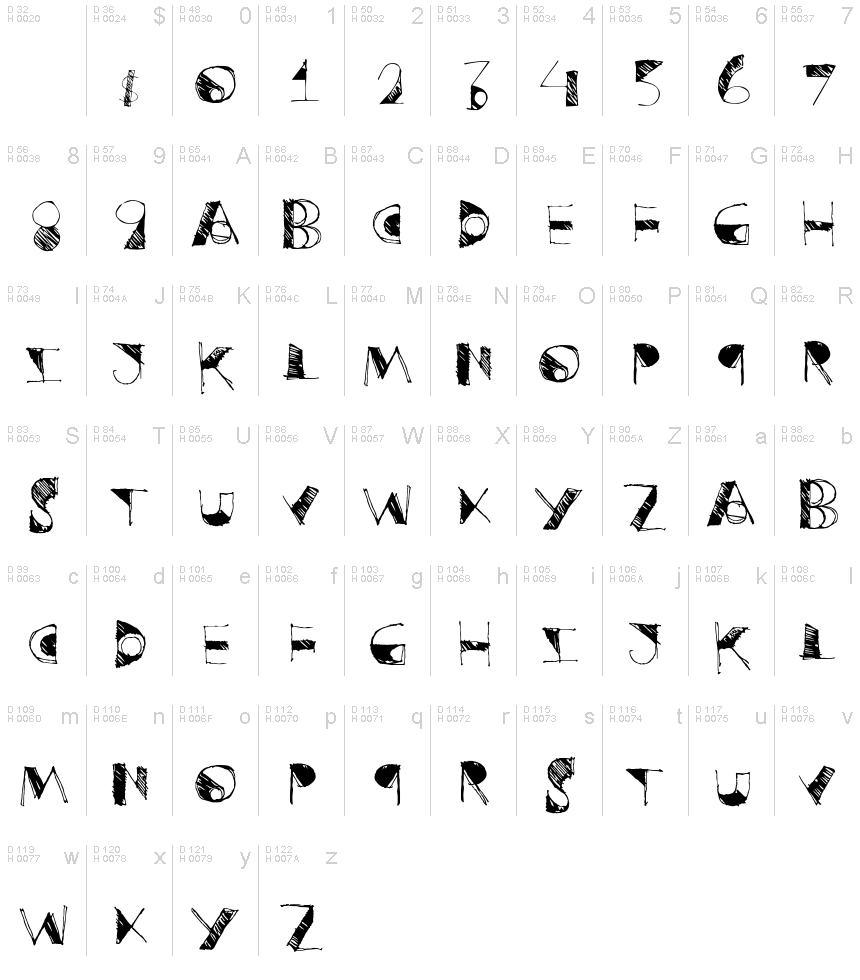
Postructure
Postructure is a captivating display font that exudes a bold, experimental flair. Crafted by Xerographer Fonts Max Infeld, this font boasts a striking, deconstructed aesthetic that seamlessly blends organic forms and angular lines. The irregular, fragmented letterforms convey a sense of raw energy and dynamism, making Postructure an ideal choice for eye-catching headlines, logos, and editorial design projects that seek to challenge conventional typographic norms.
Its distinctive character and versatile nature allow it to seamlessly transition between contemporary, avant-garde, and industrial-inspired design contexts, making it a valuable asset in the creative professional's toolkit.